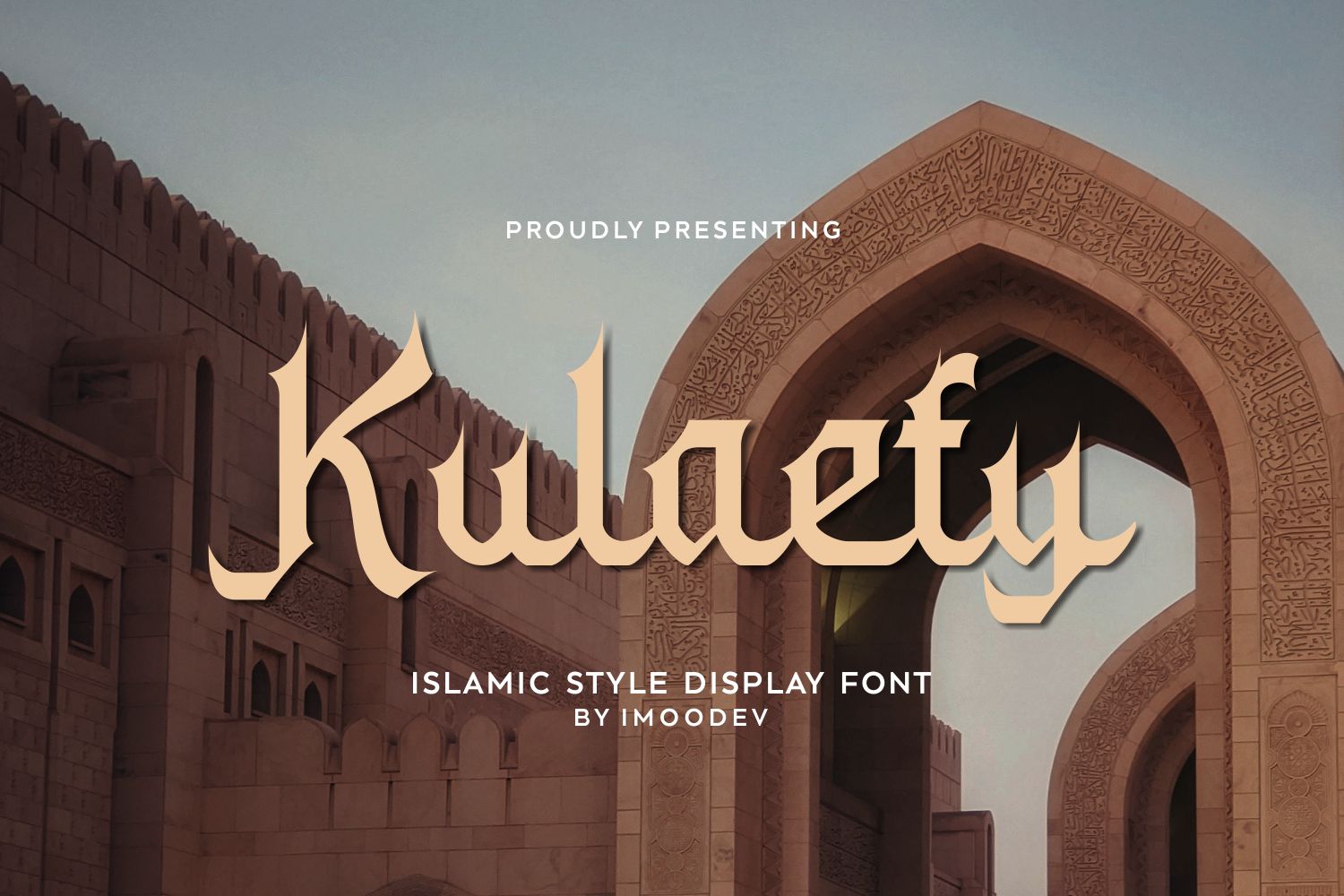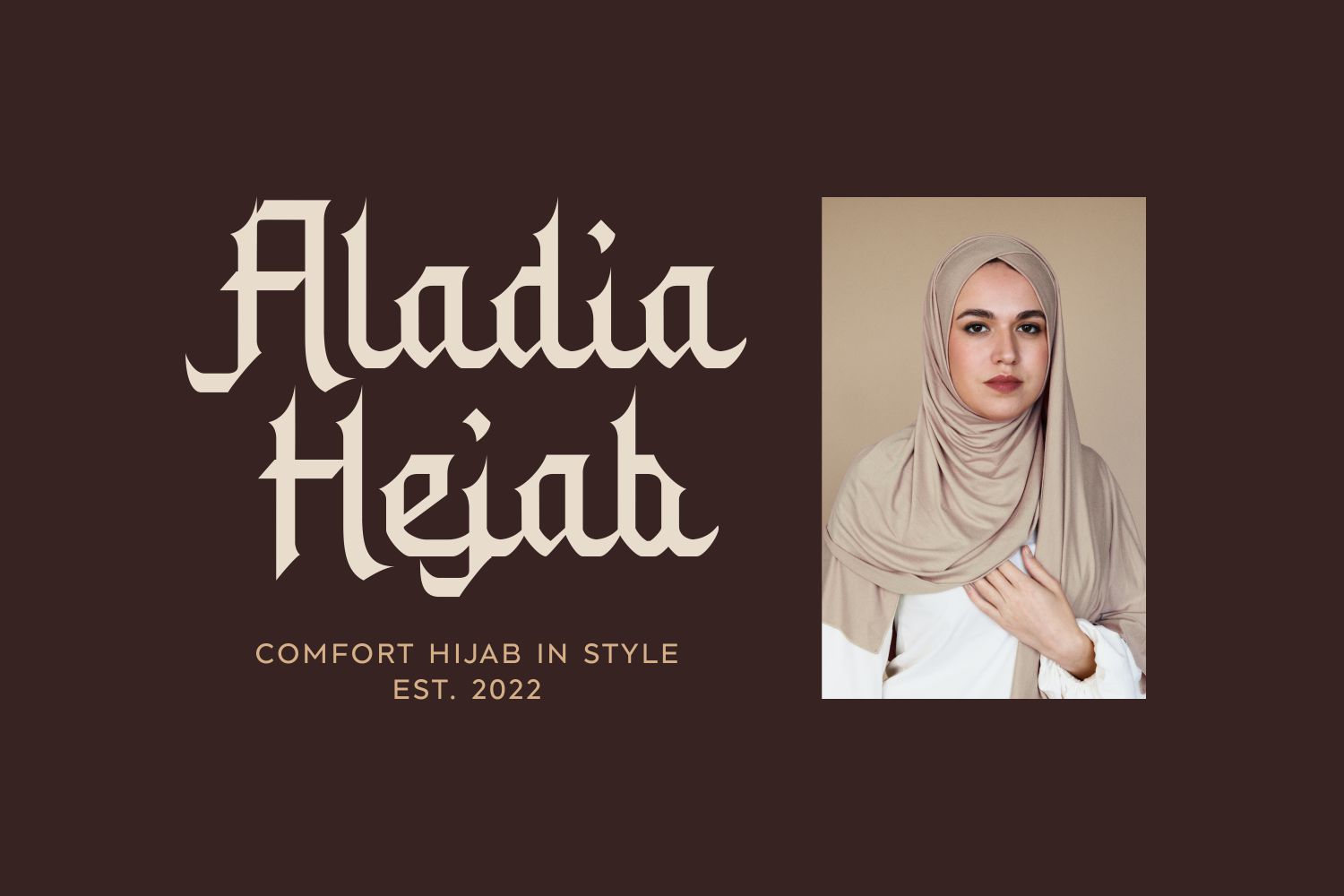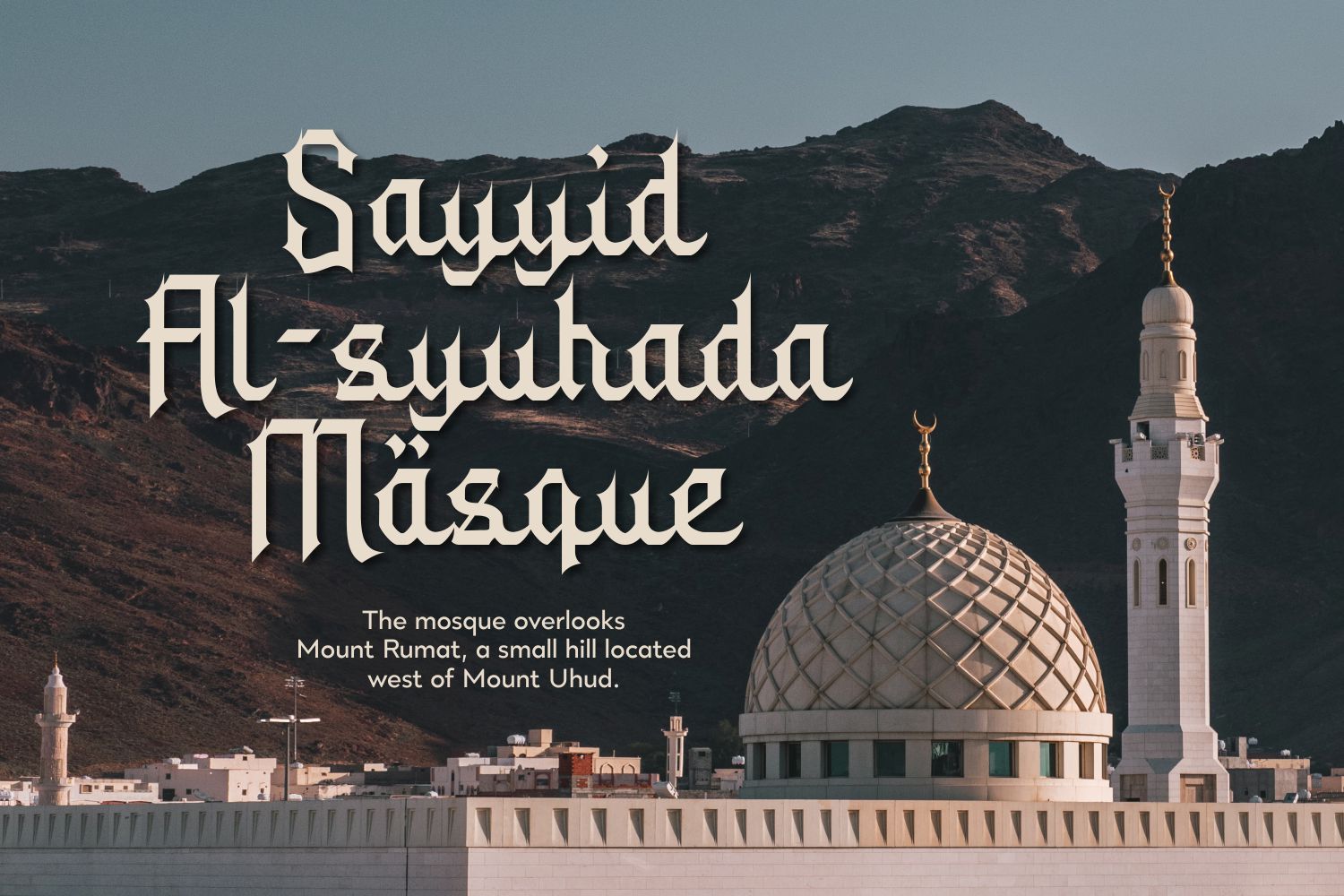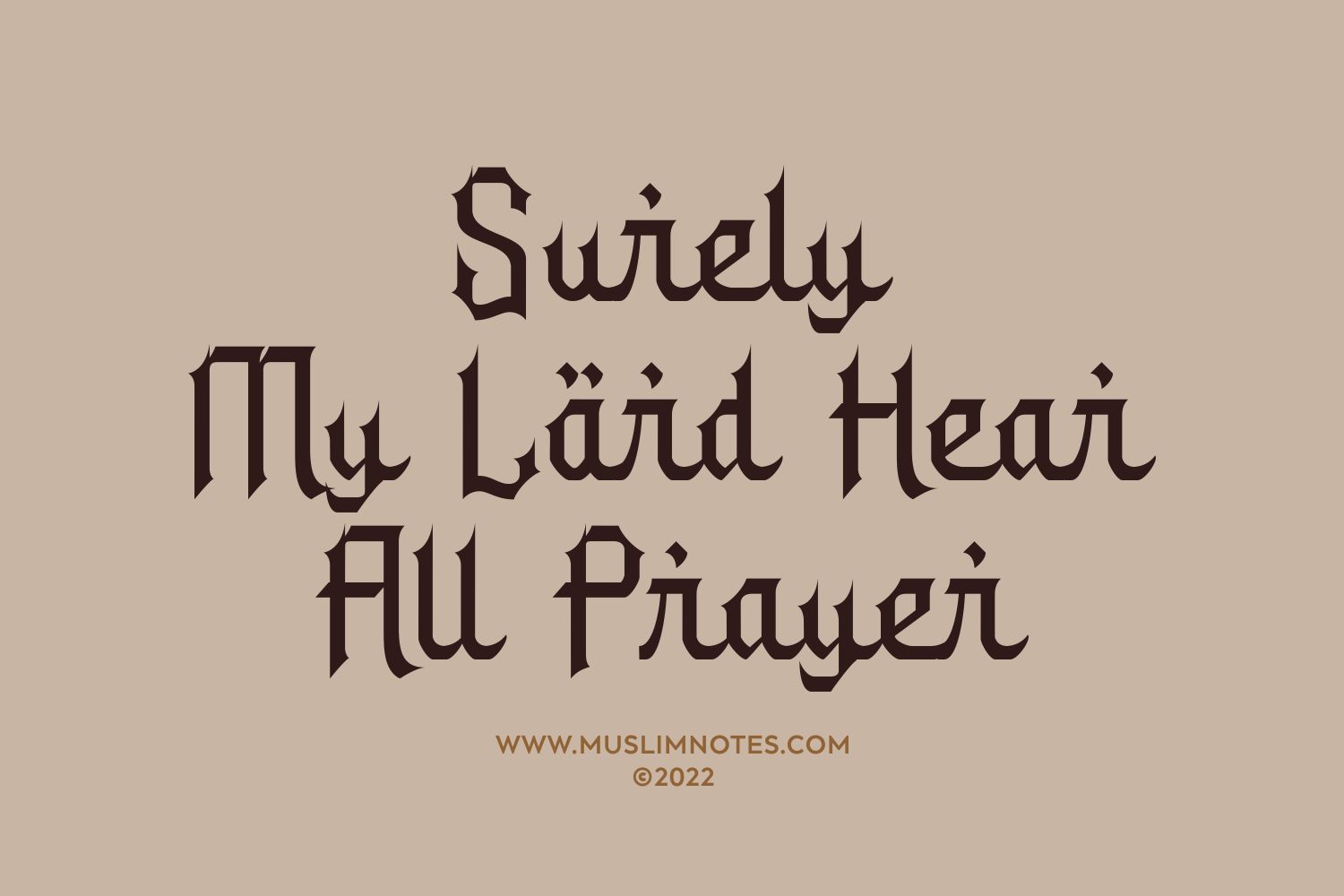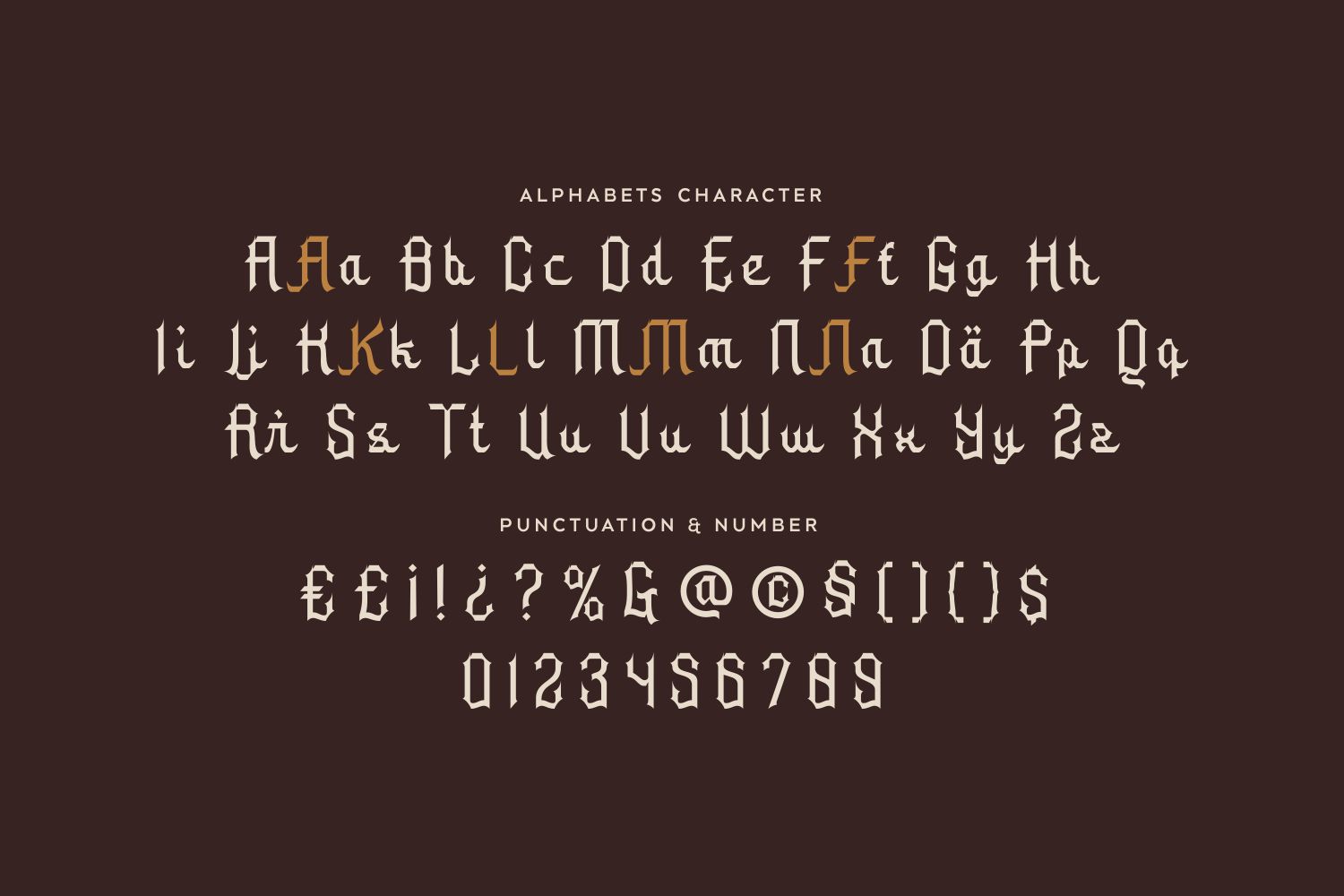
Kulaefy is an Islamic style display font that combines traditional elegance with bold modern strokes. Its sharp edges and ornamental forms are inspired by Middle Eastern architecture and calligraphy, making it perfect for designs that seek cultural depth and authenticity. With its distinctive character, Kulaefy brings a strong and dignified presence to any creative project.
Designed for versatility, Kulaefy works beautifully in branding, book covers, posters, event invitations, and religious-themed projects. Its unique letterforms and balanced rhythm allow it to adapt seamlessly across digital and print media, ensuring your designs stand out with an expressive and timeless appeal.
Kulaefy